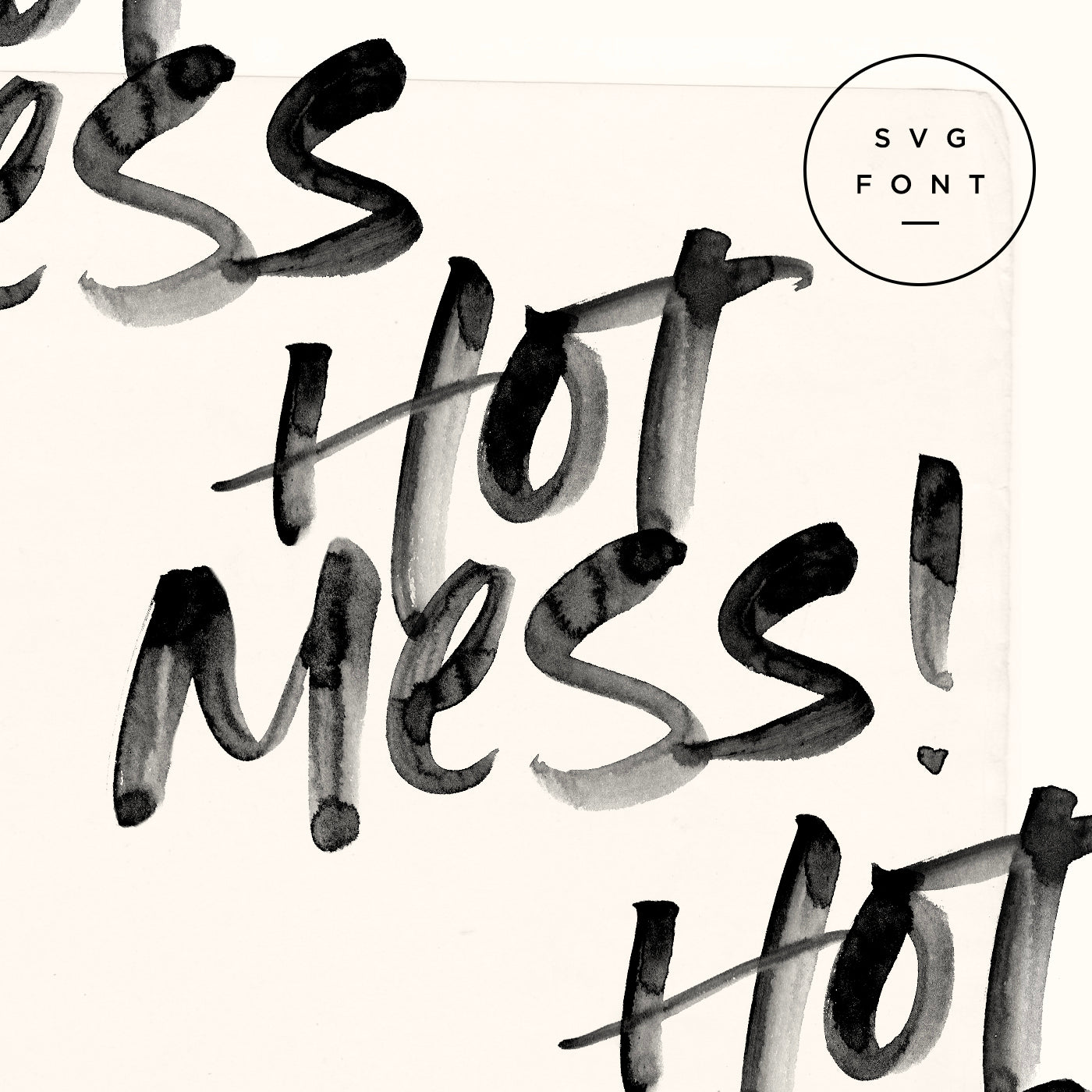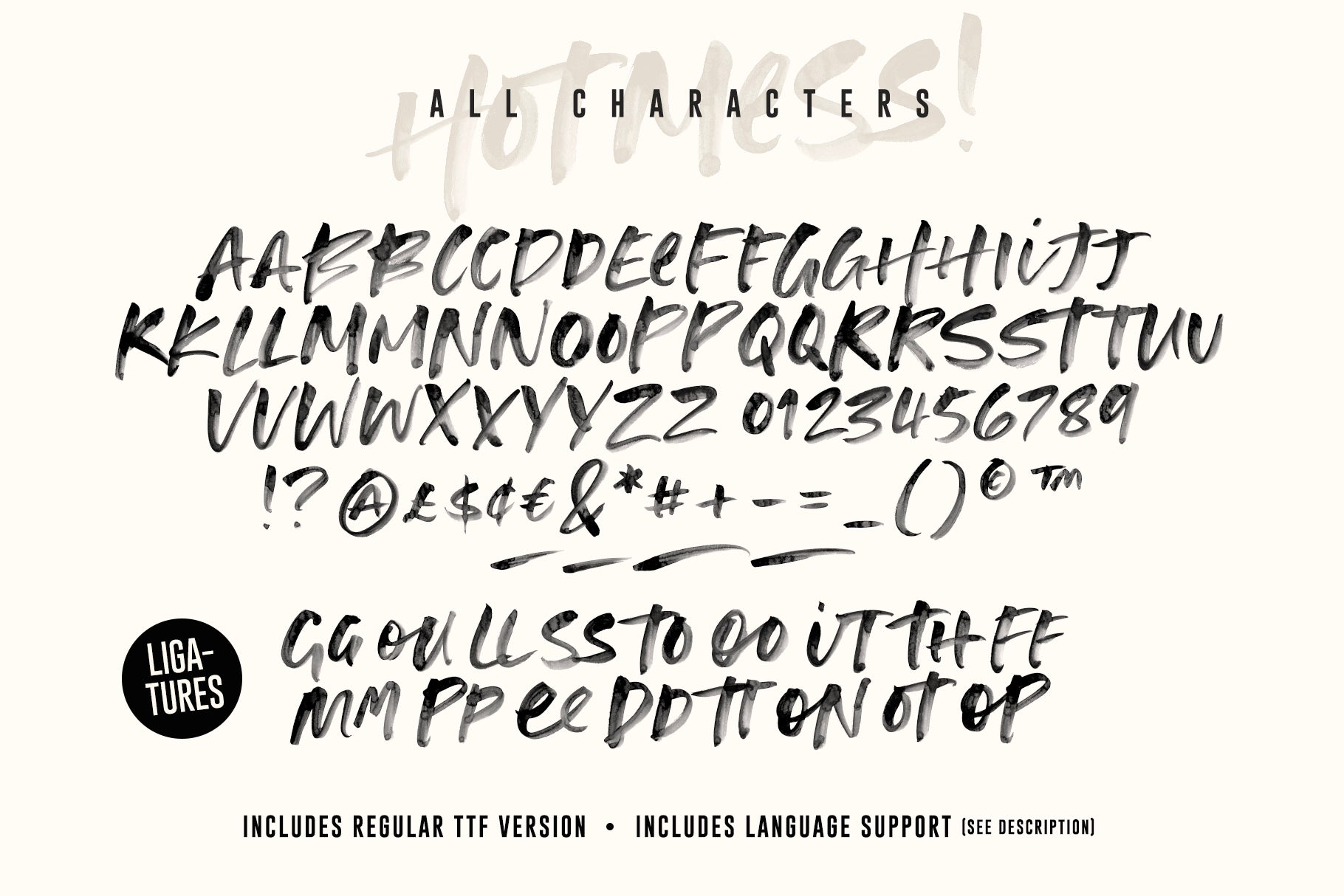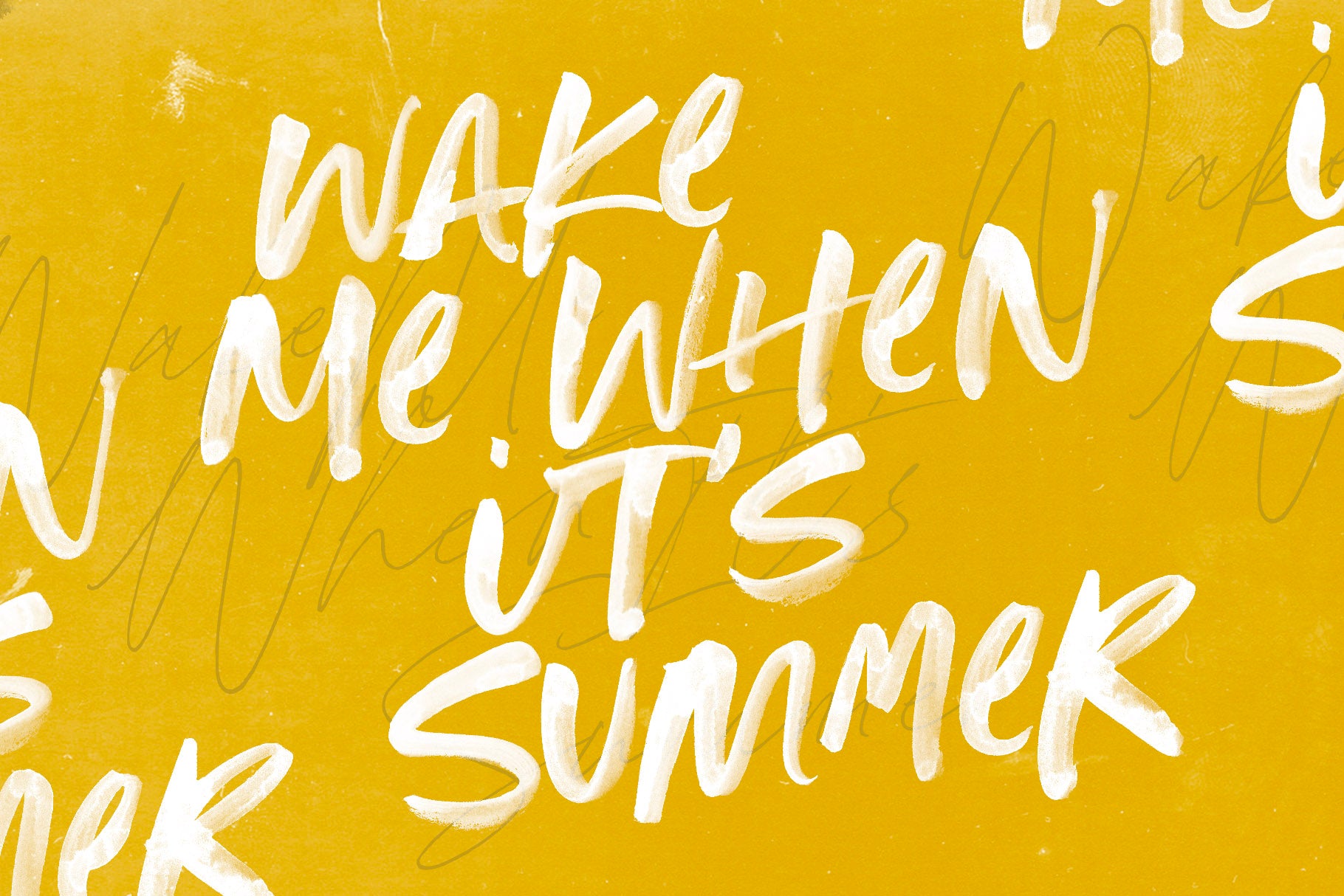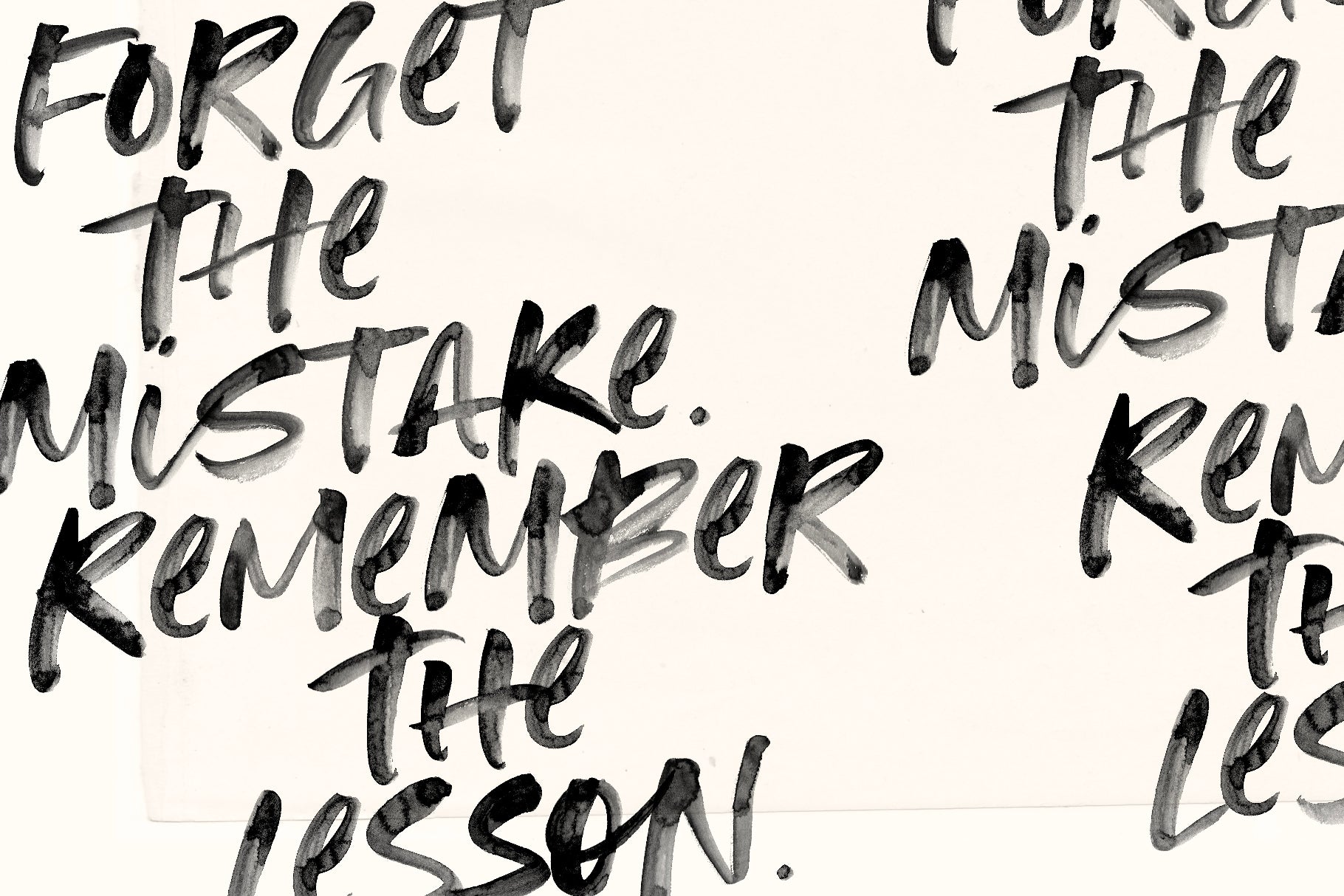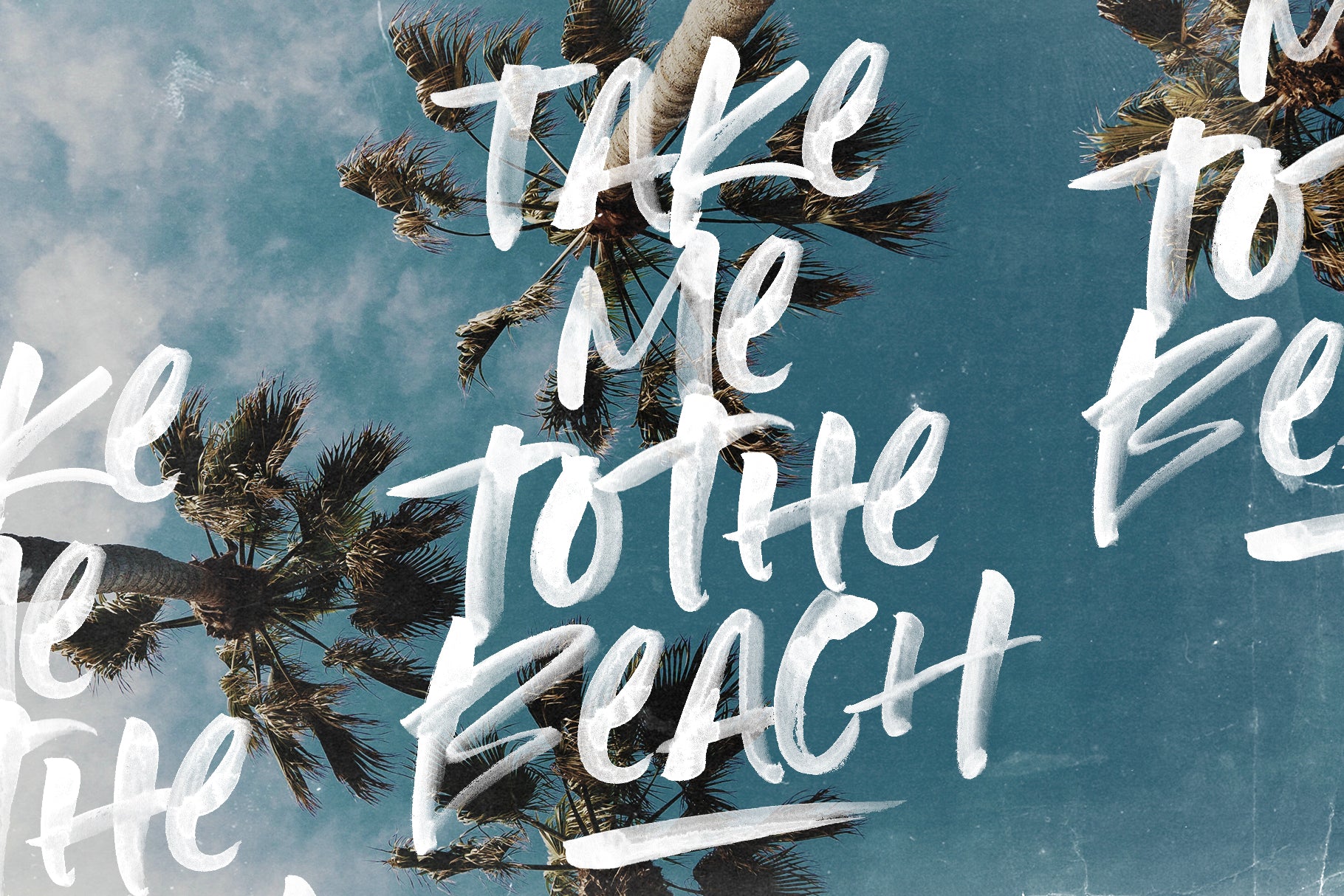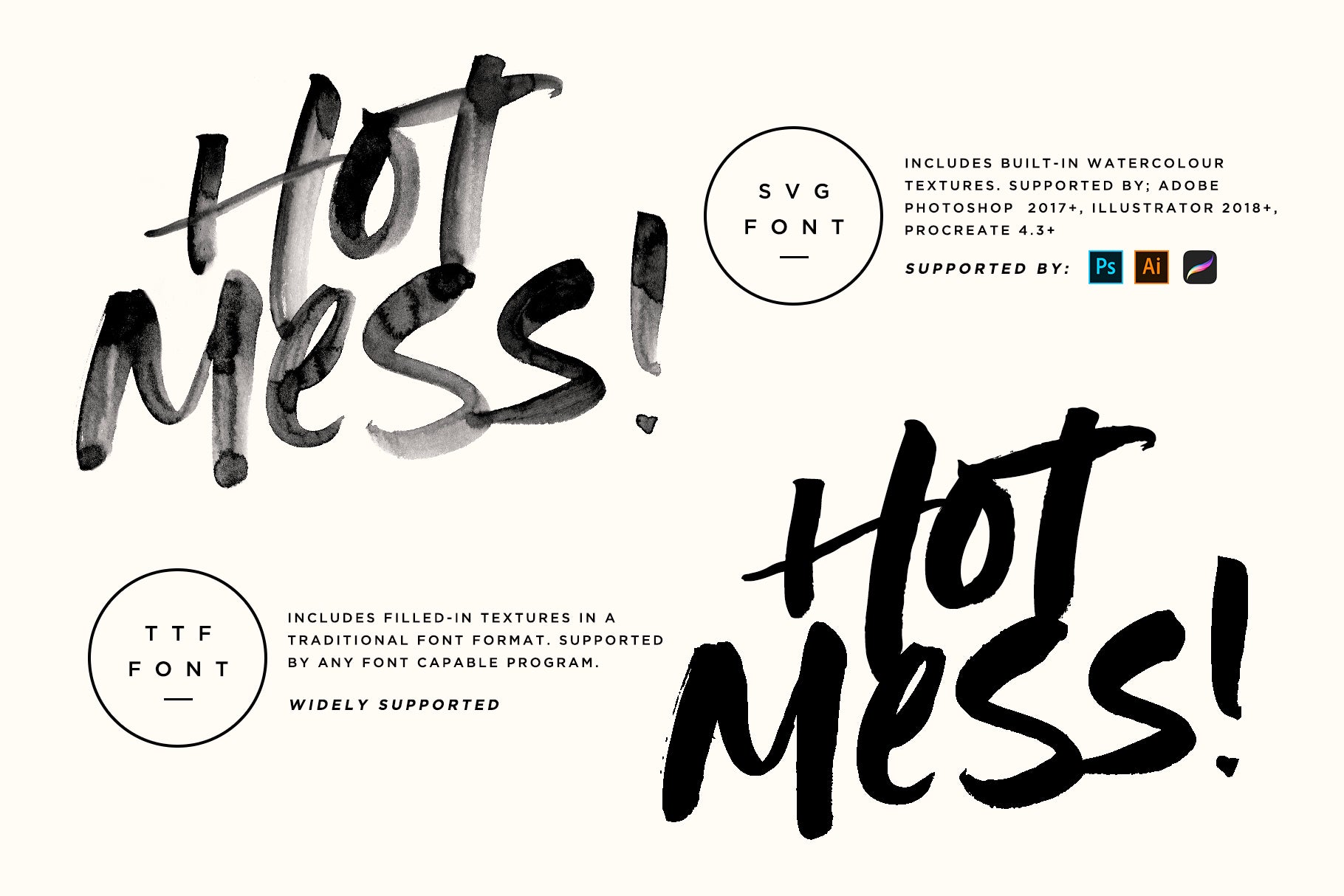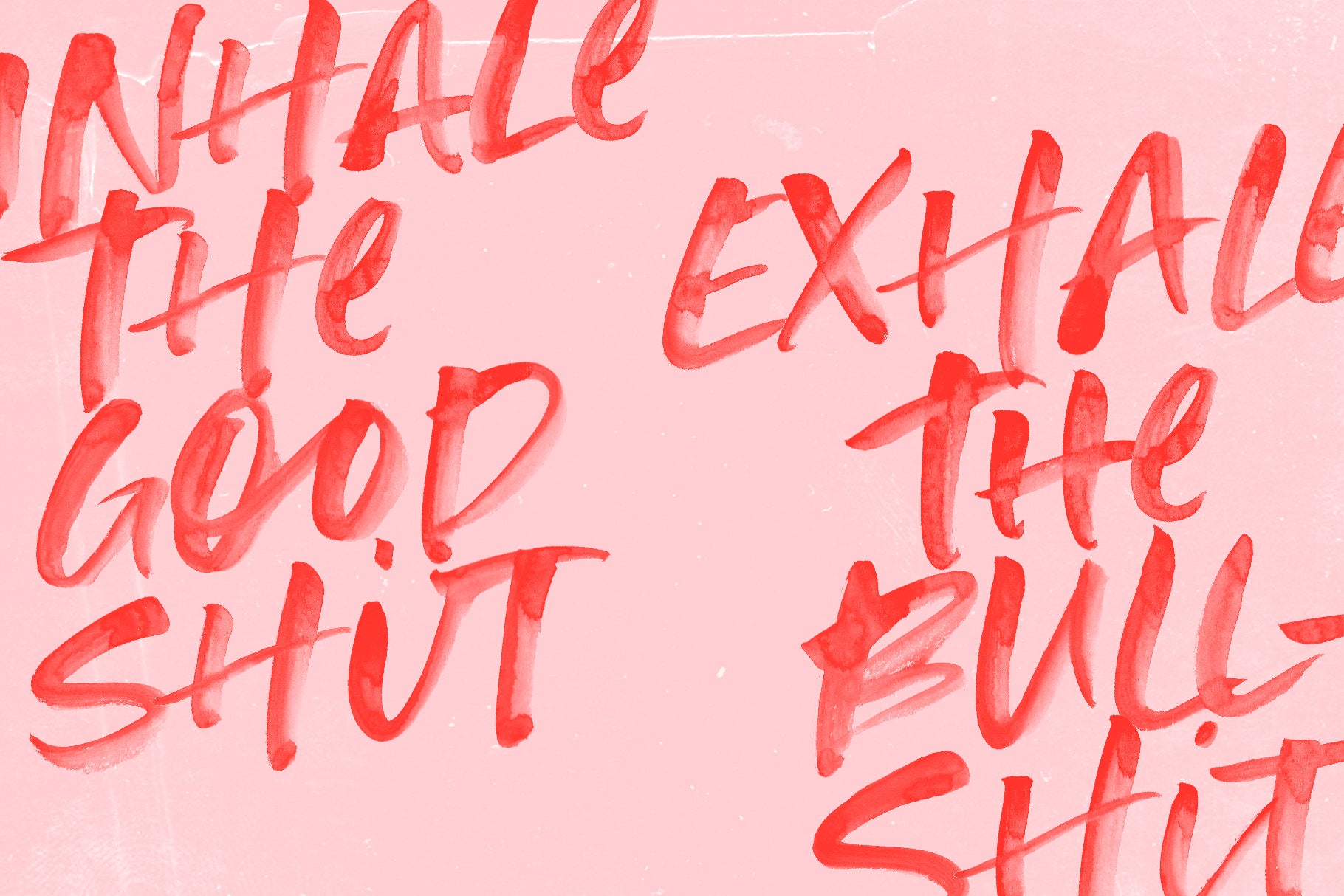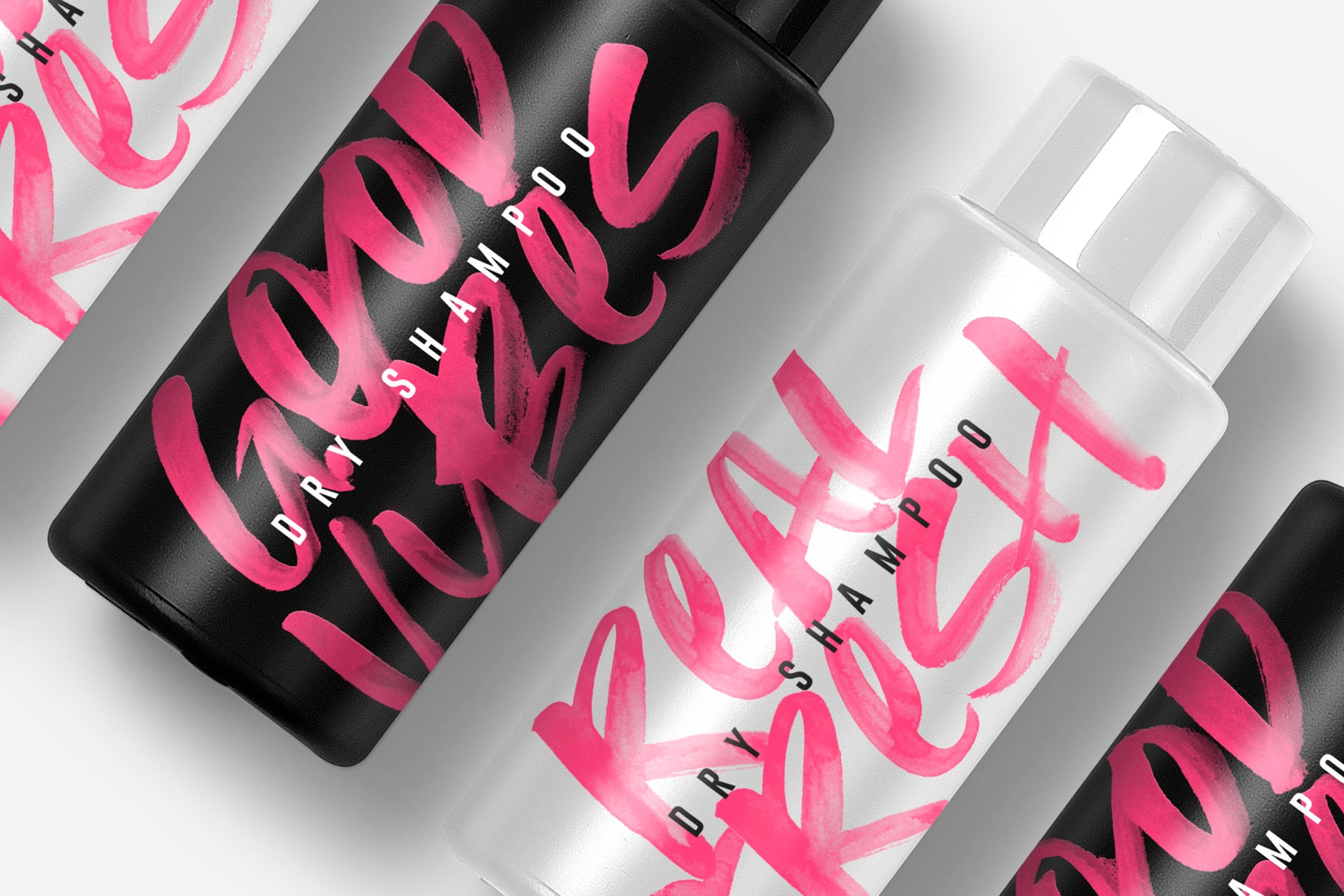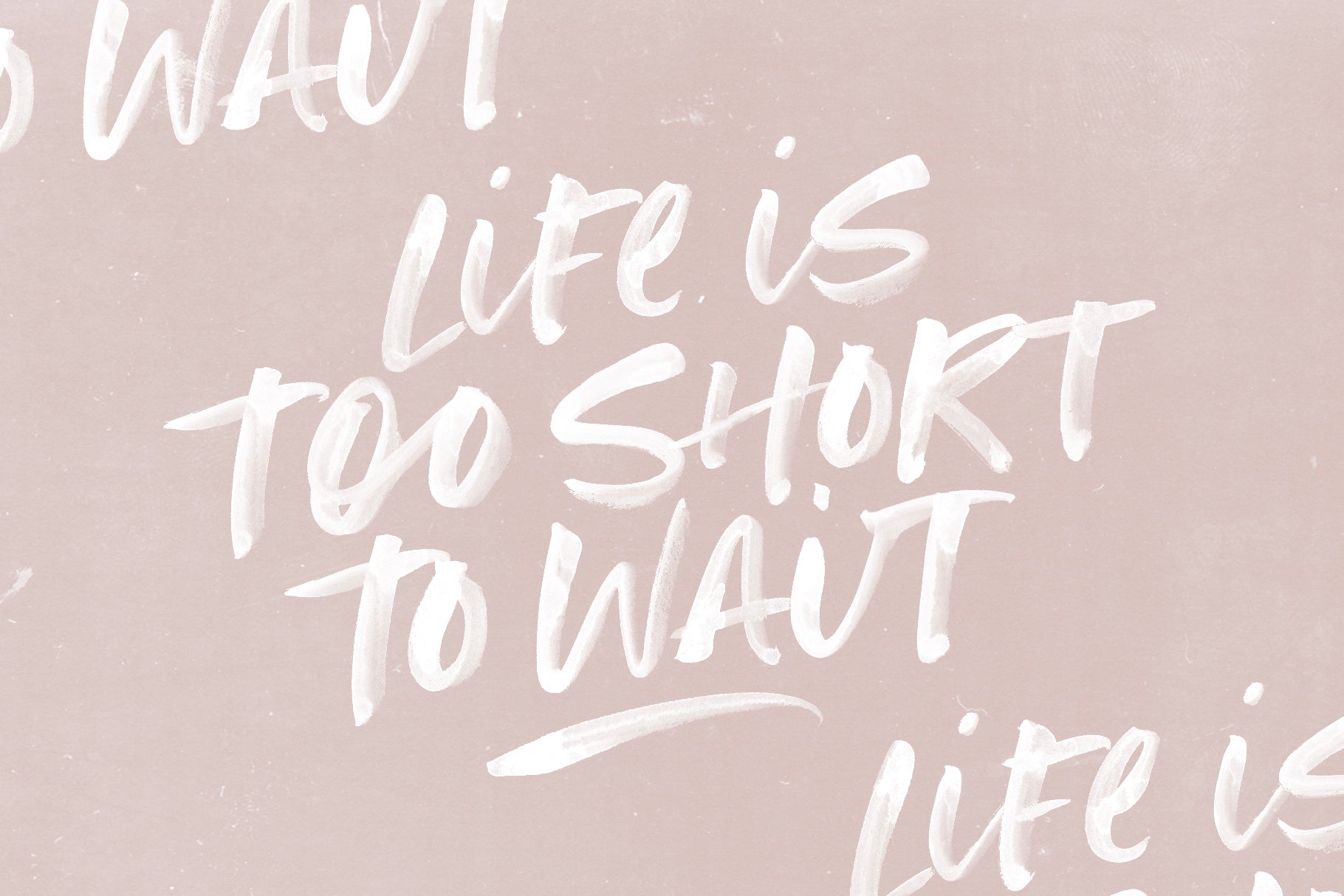
Hot Mess SVG Font
The Hot Mess SVG Font is a bold hand-brushed typeface that includes both an SVG version with high-resolution watercolor textures and a traditional TTF version. Each font file features 17 ligatures for natural letter pairings and 4 swashes for added stylistic elements.